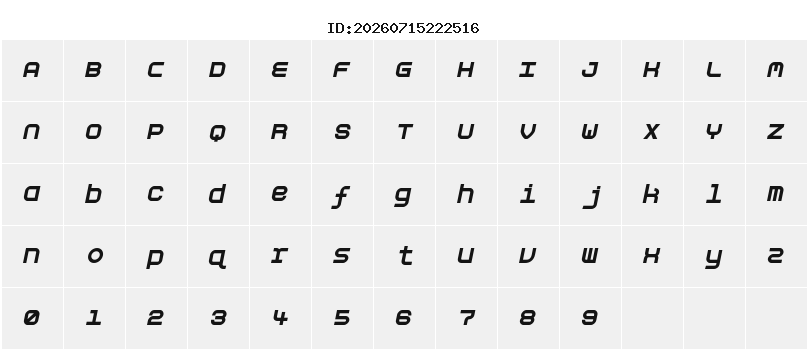
Aspirin-Refill-Collapsed Preview
• Font Name: Aspirin-Refill-Collapsed
• Full Font Name: Aspirin-Refill-Collapsed-Regular
About Aspirin-Refill-Collapsed.ttf
Aspirin-Refill-Collapsed.ttf is a modern, elegant sans-serif font designed for ultimate readability and visual harmony. Perfect for branding, headlines, web design, and print materials.